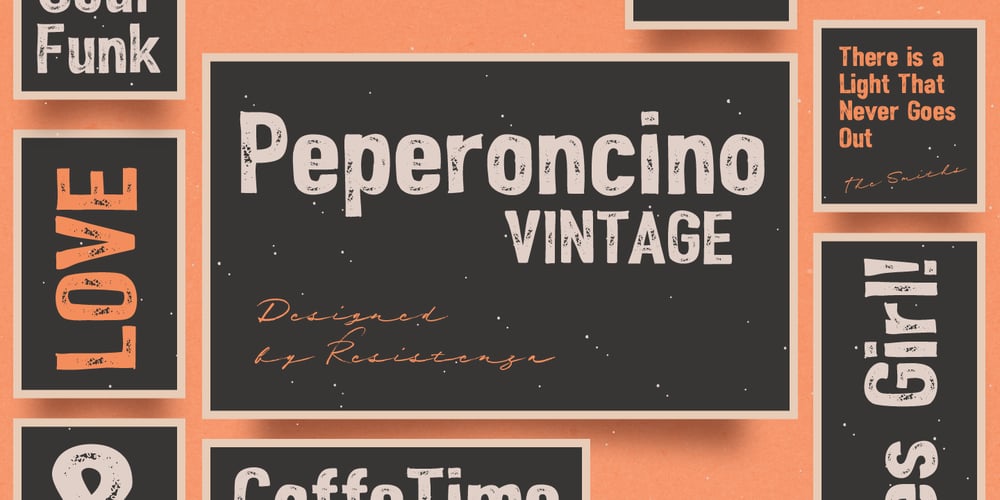
Peperoncino Vintage Font Family was designed by Giuseppe Salerno, Paco González and published by Resistenza. Peperoncino Vintage contains 2 styles and family package options. Peperoncino is a sans serif font. Designed first with a marker, the irregular strokes create a fresh handmade feeling. After the big success of Peperoncino Family, we create its vintage version adding some “rusted” elements.